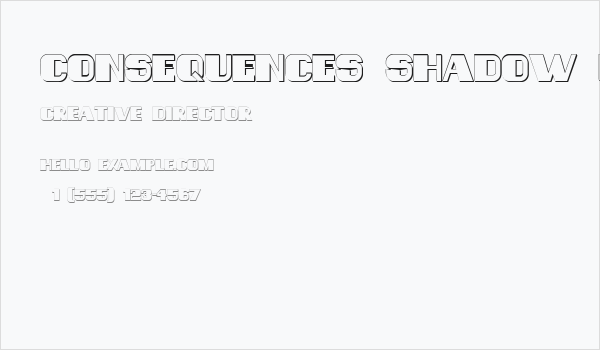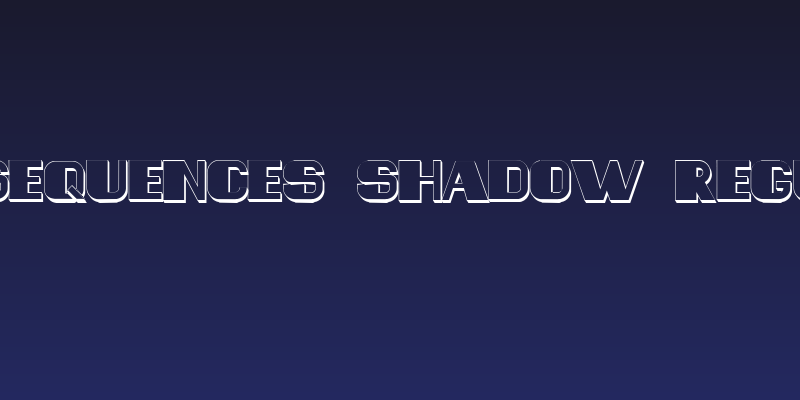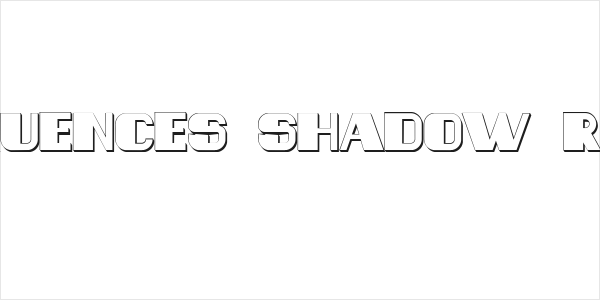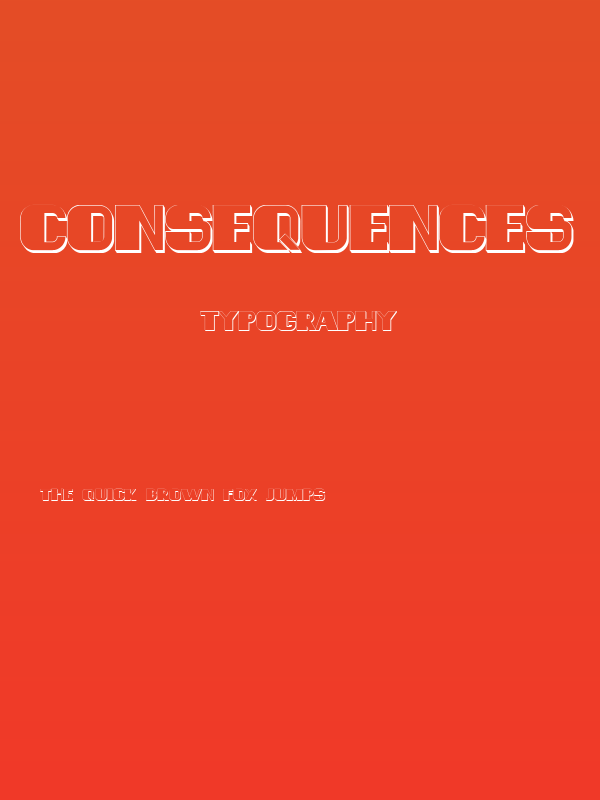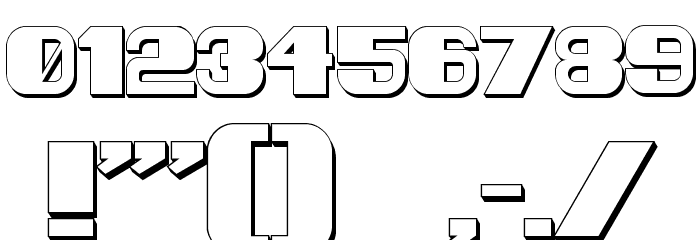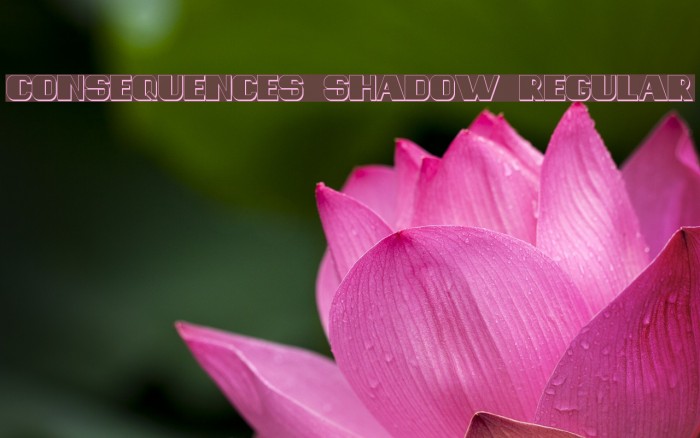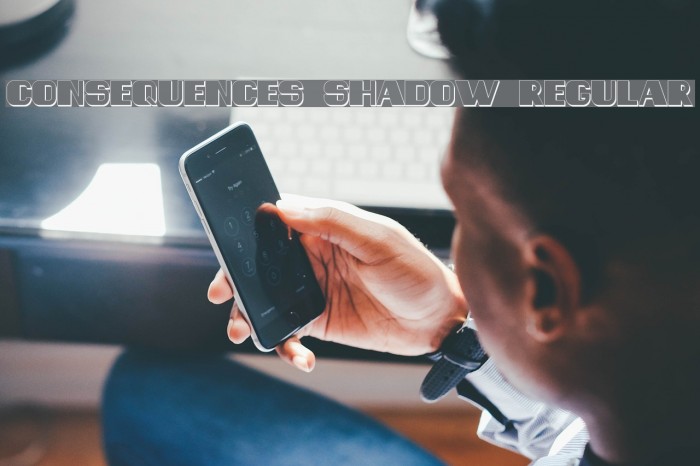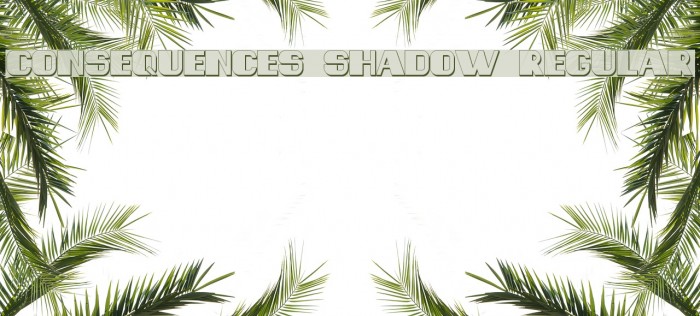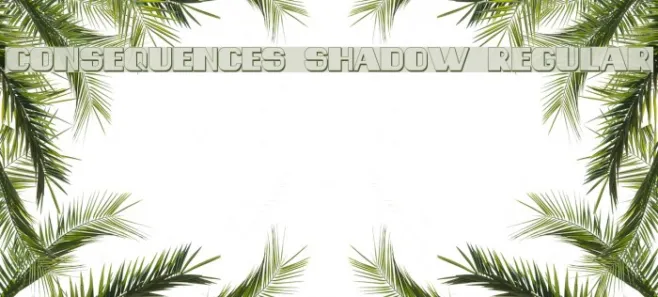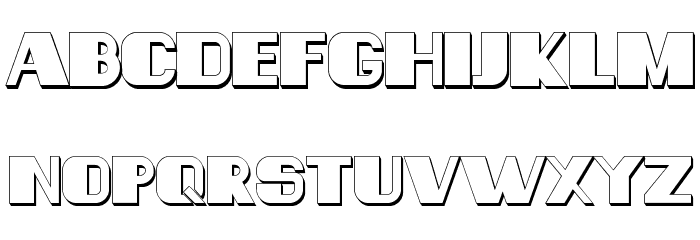
Consequences Shadow Regular Font
Consequences Shadow Regular Description
This font features a bold, shadowed design that gives each character a three-dimensional appearance. The letters are uppercase and have a strong, impactful presence, making them ideal for attention-grabbing headlines or titles. The shadow effect adds depth and a sense of movement, enhancing the visual appeal. The characters are evenly spaced, ensuring readability while maintaining a cohesive look. The font's style is modern and dynamic, suitable for projects that require a bold statement or a contemporary edge.
| Proposed Projects | Ideal for posters, headlines, logos, and any design requiring a bold, impactful statement. |